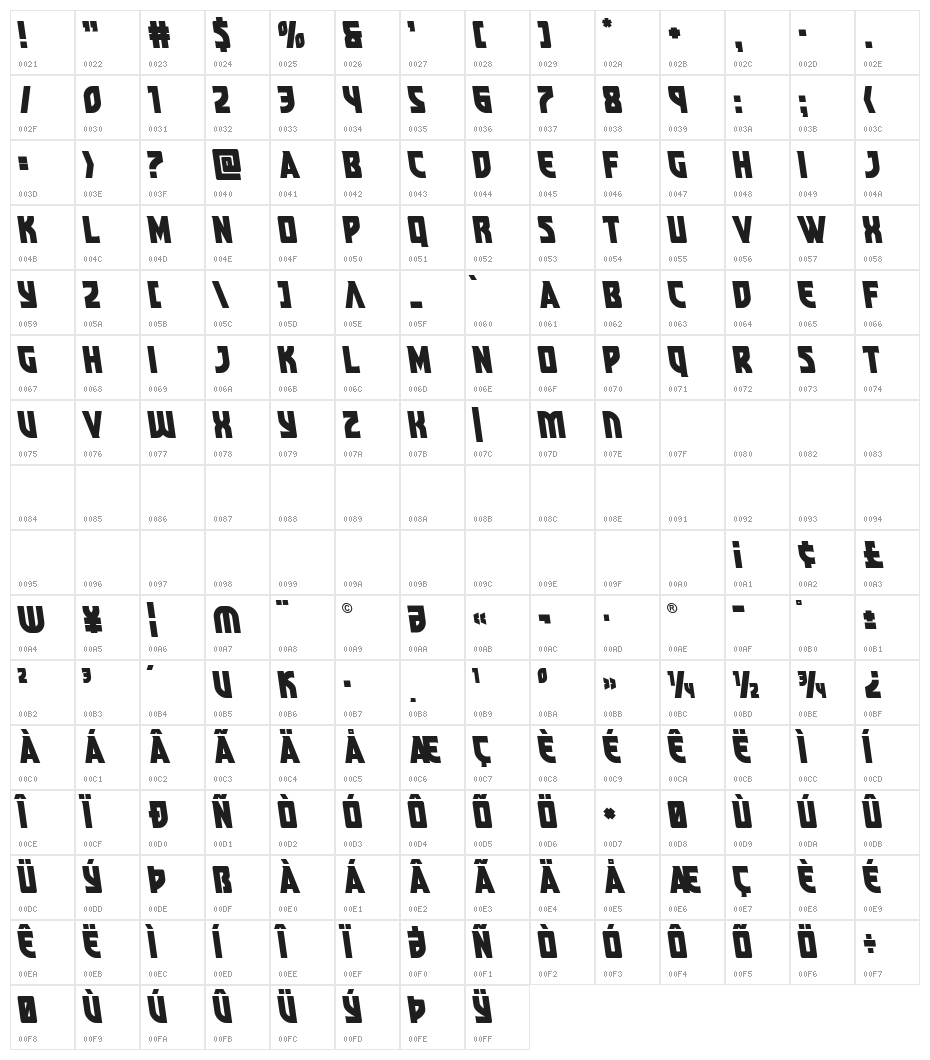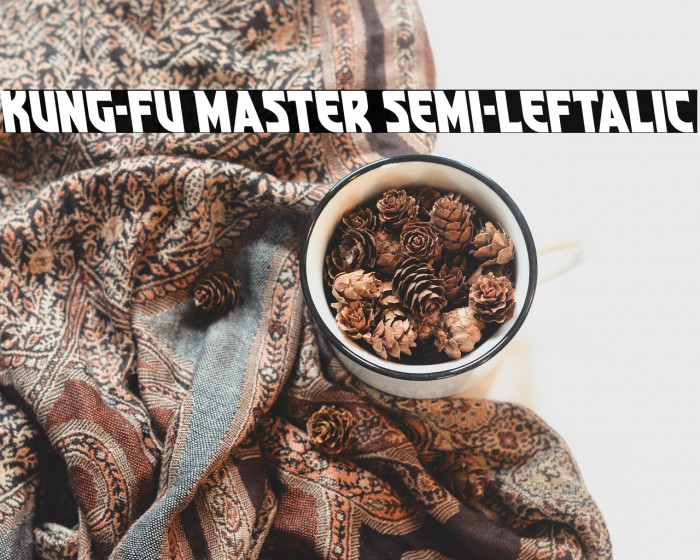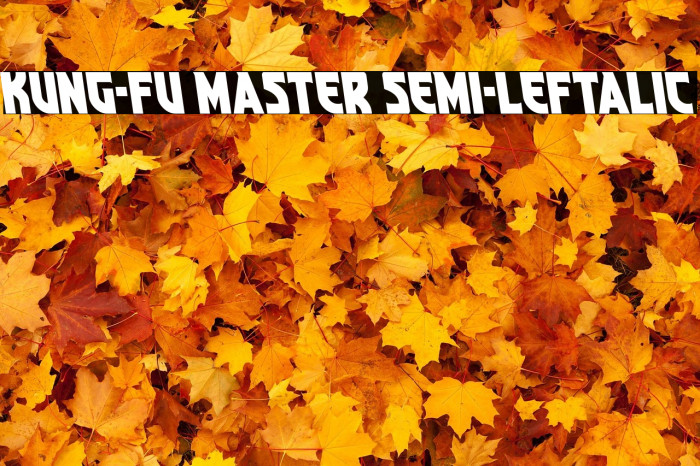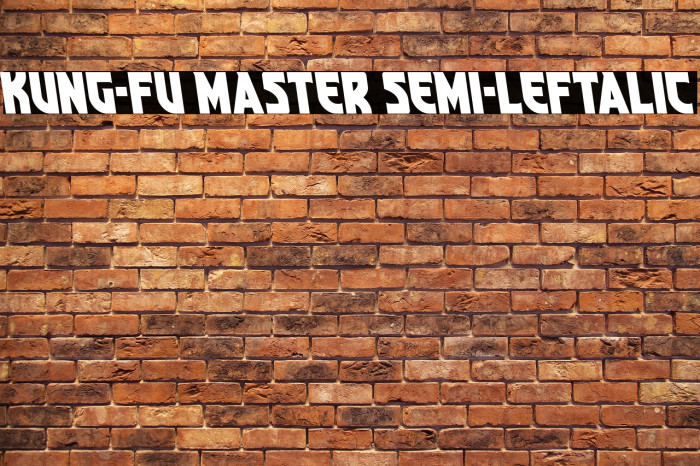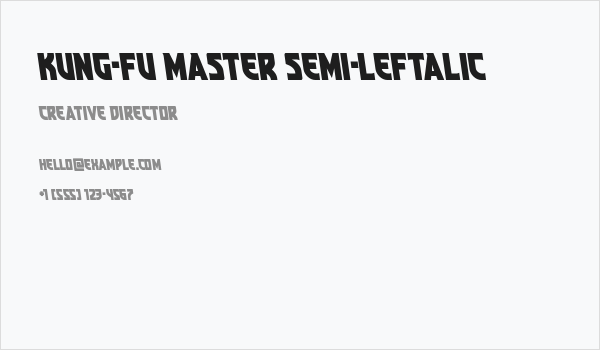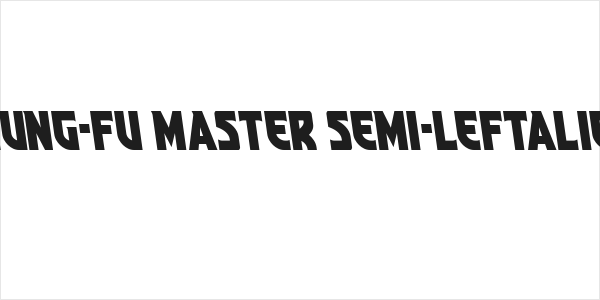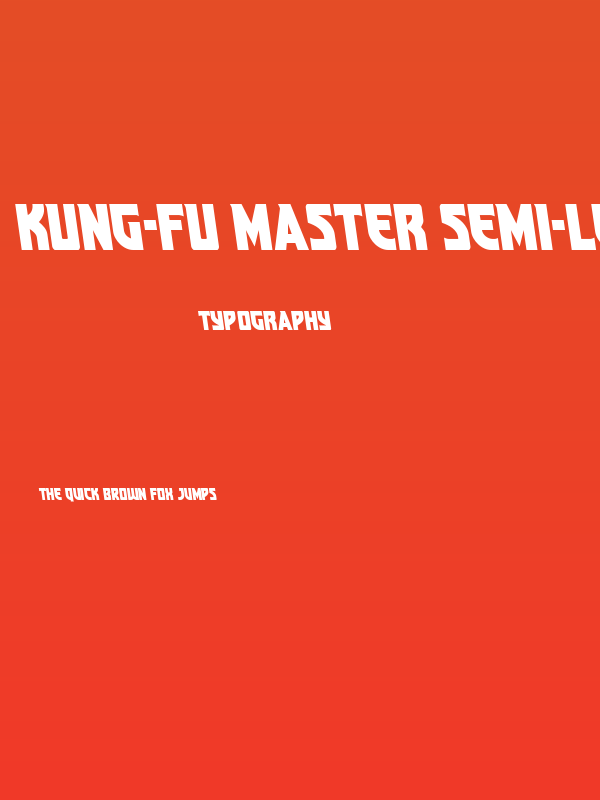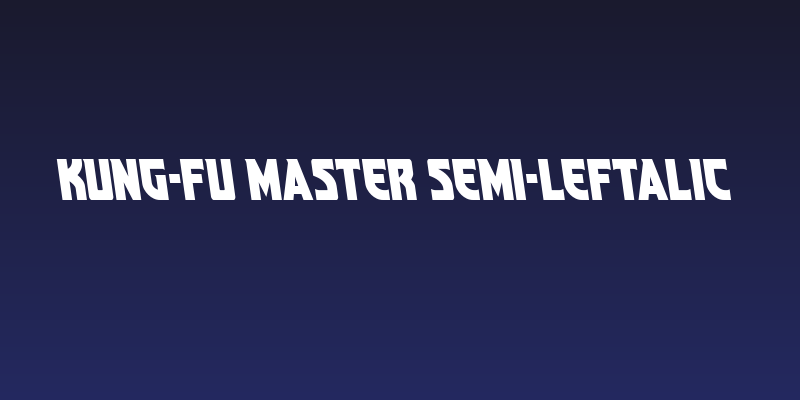
Kung-Fu Master Semi-Leftalic Font
Kung-Fu Master Semi-Leftalic Description
This font features a bold and dynamic style with a distinct slant to the left, giving it an energetic and action-oriented appearance. The characters are thick and robust, with sharp angles and a slightly condensed form that conveys strength and movement. The uppercase and lowercase letters maintain a consistent style, while the numerals and special characters complement the overall design. The font's unique slant and boldness make it stand out, ideal for projects that require a strong visual impact.
| Overall Style | Modern, Energetic |
| Proposed Projects | Ideal for action-themed posters, video game titles, martial arts event branding, and dynamic logo designs. |